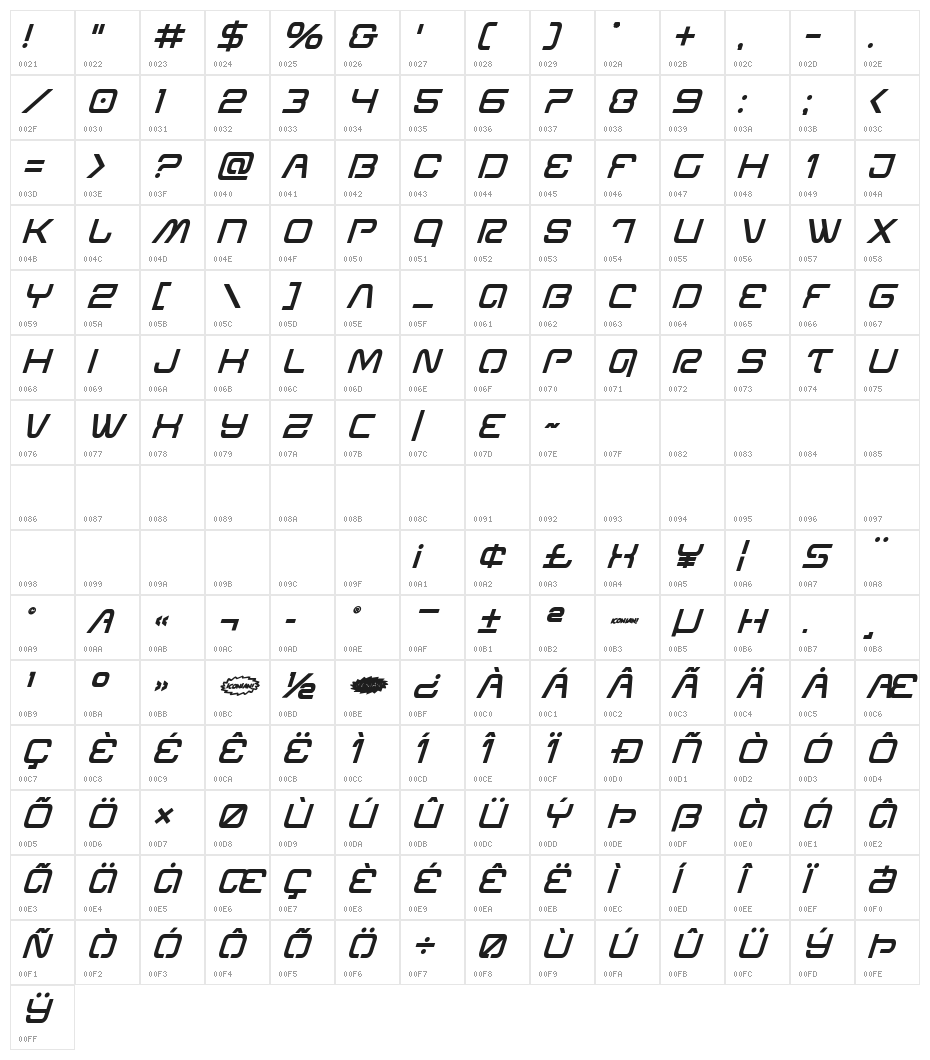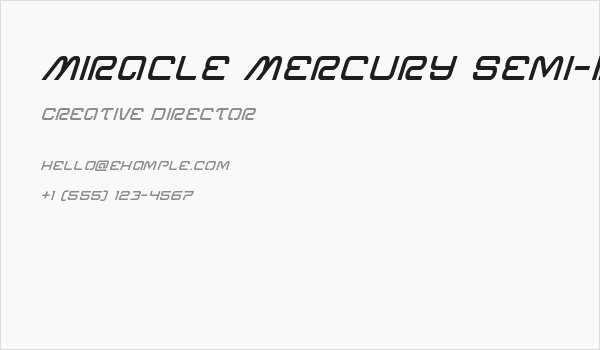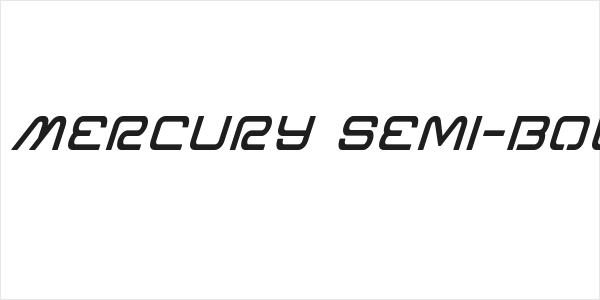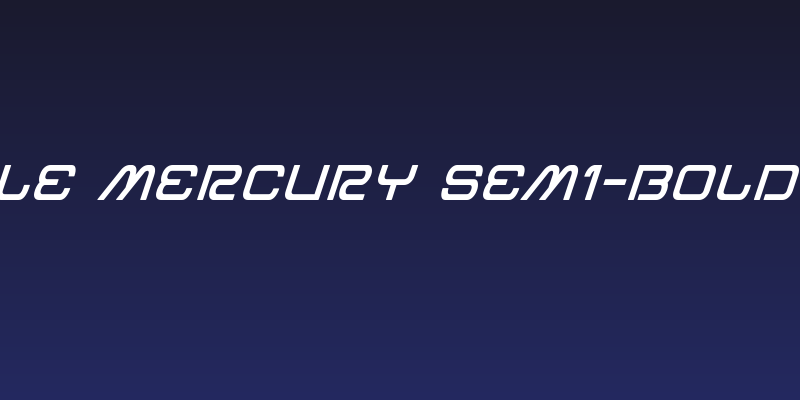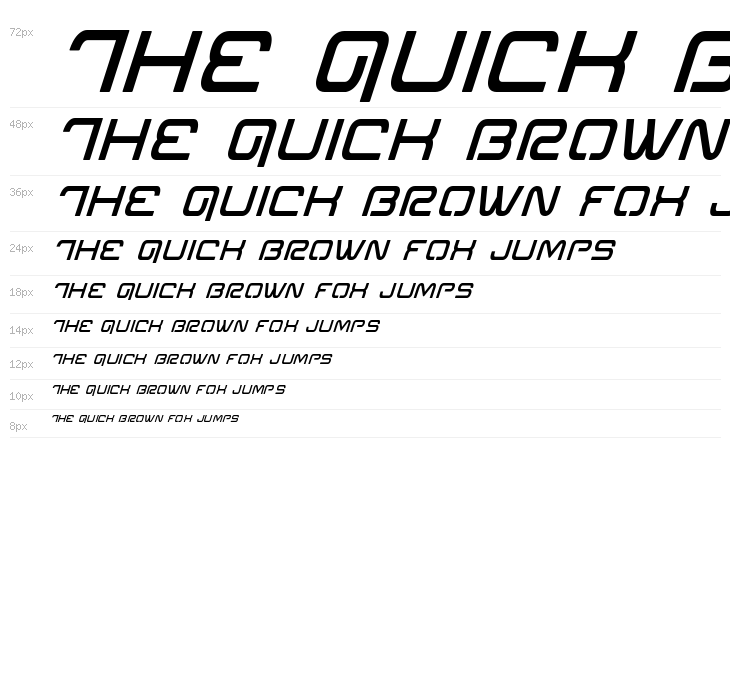
Miracle Mercury Semi-Bold Italic Font
Miracle Mercury Semi-Bold Italic Description
This font features a sleek, modern design with a semi-bold weight and italic style. The characters are slightly condensed, giving it a streamlined appearance. The strokes are consistent in thickness, providing a medium contrast that enhances readability while maintaining a stylish look. The font's geometric shapes and angled lines contribute to its futuristic and dynamic feel, making it suitable for various creative applications. The overall style is contemporary, with a touch of elegance that can elevate any design project.
| Proposed Projects | Ideal for branding, advertising, technology-related designs, and modern editorial layouts. |